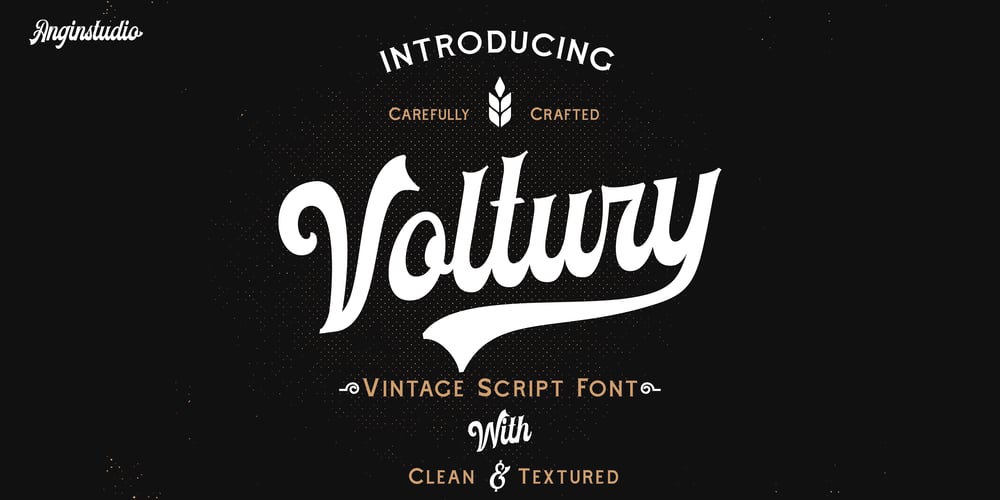
Voltury Font Family was designed by Ahmad Aswin, David Novrian and published by Angin Studio. Voltury contains 2 styles and family package options. Voltury is a vintage script created carefully to create a great flow and great character. It is inspired by American vintage signage and packaging. Voltury comes with 2 styles: clean and rough. It also comes with OpenType features such as ligatures and stylistic alternates, so you have more flexibility to mix and match the letters and make your design stand out from the crowd. It also contains characters for multi-lingual support. Check this link to see all glyph inside this product : https://bit.ly/2Oa3DVo Email : ahmadaswin99@gmail.com Thank you happy creating